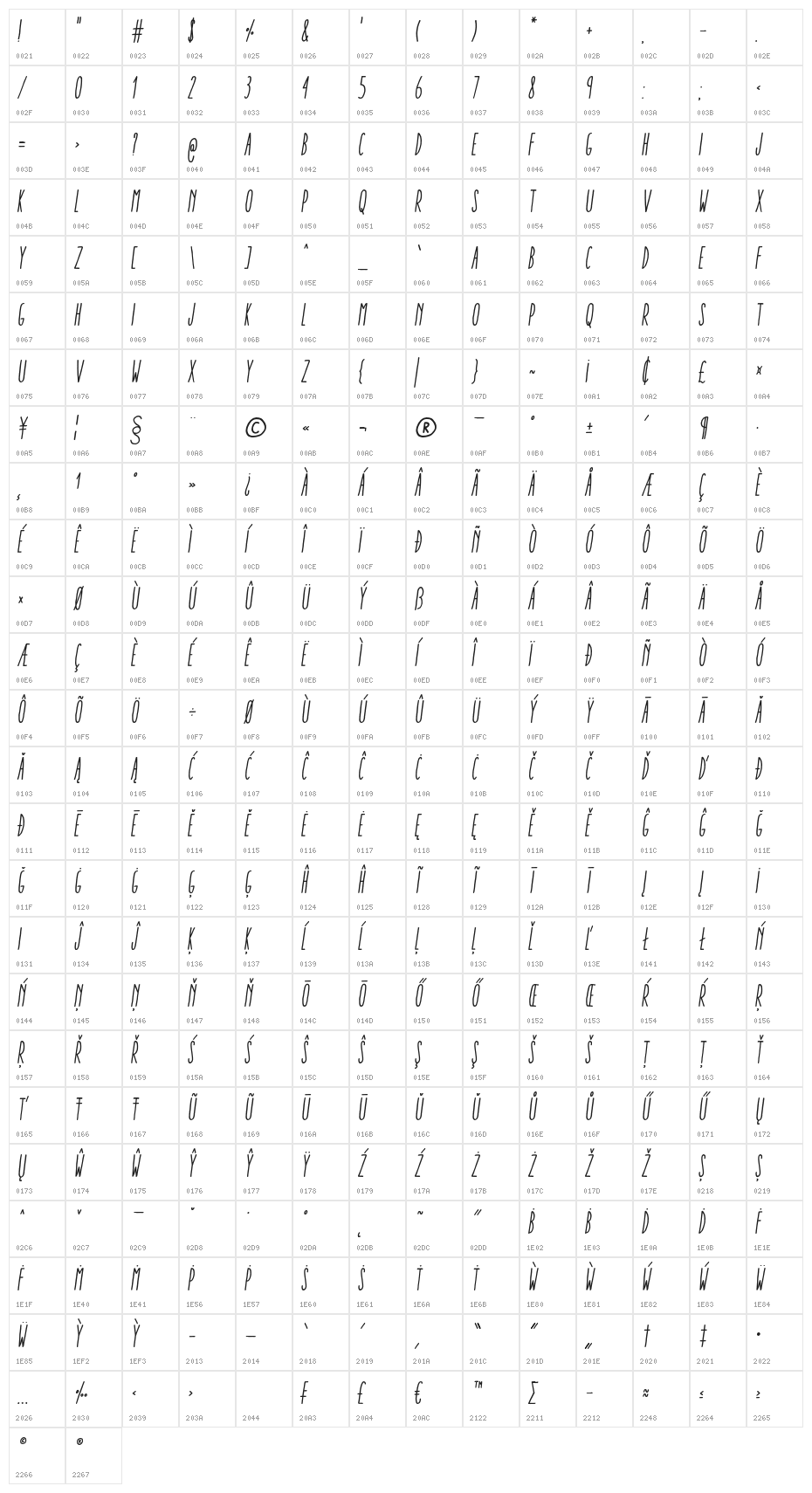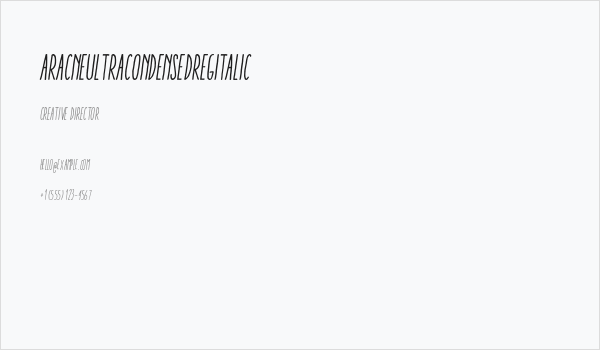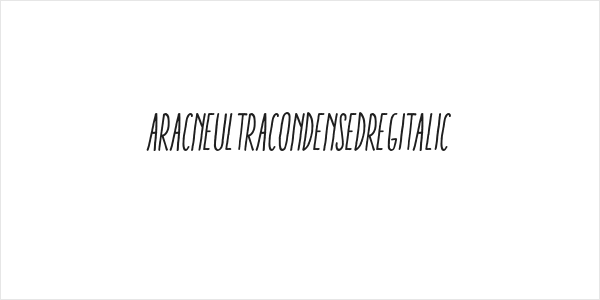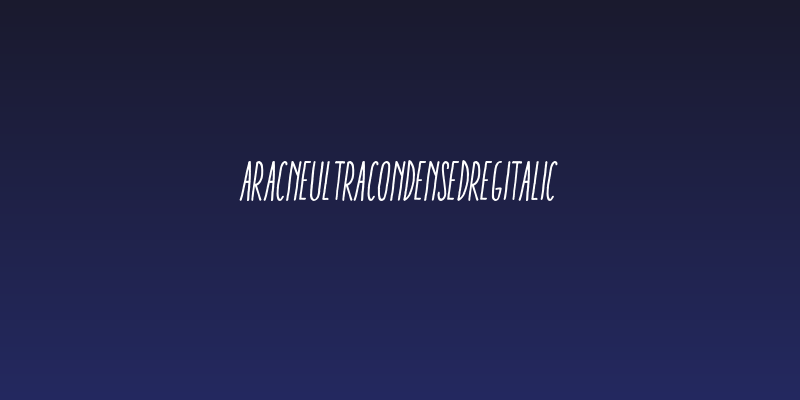
AracneUltraCondensedRegItalic Font
AracneUltraCondensedRegItalic Description
This font features a unique, ultra-condensed style with a distinct italic slant, giving it a dynamic and energetic appearance. The characters are elongated and narrow, creating a sense of height and elegance. The strokes are consistent in width, contributing to a clean and modern look. The uppercase and lowercase letters maintain a cohesive design, while the numerals and special characters complement the overall aesthetic. This font's slender form makes it ideal for creating a striking visual impact without overwhelming the viewer.
| Proposed Projects | Ideal for fashion magazines, modern branding, dynamic posters, and creative advertising campaigns. |